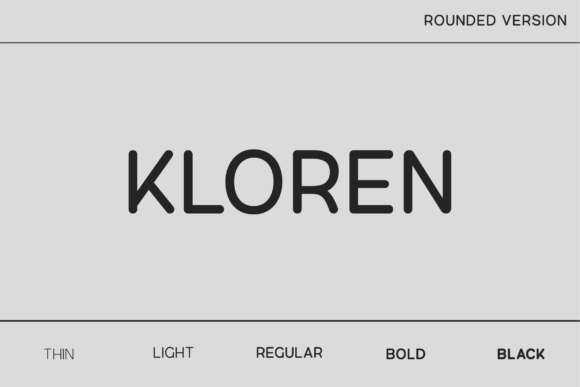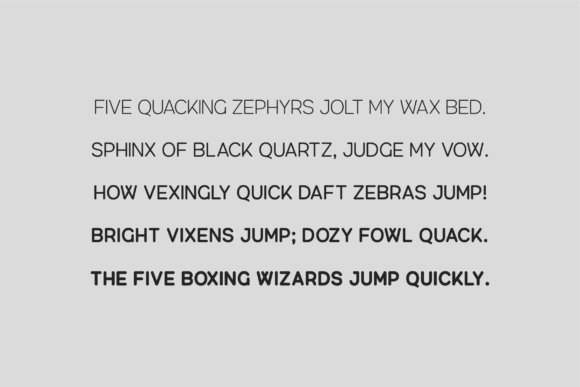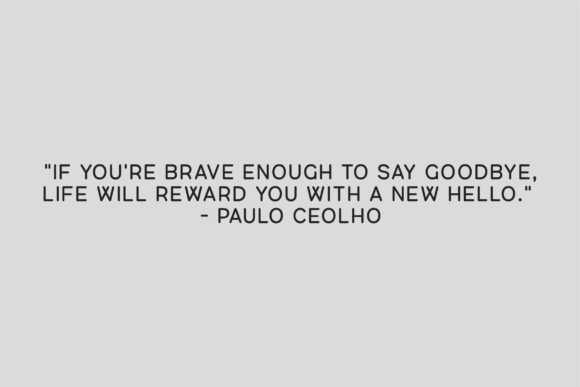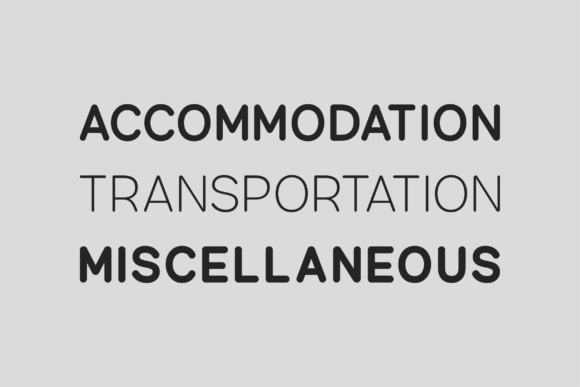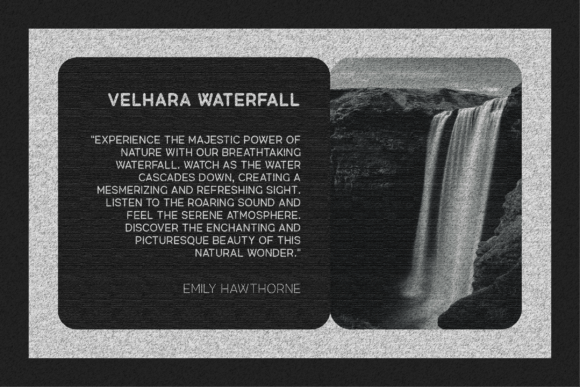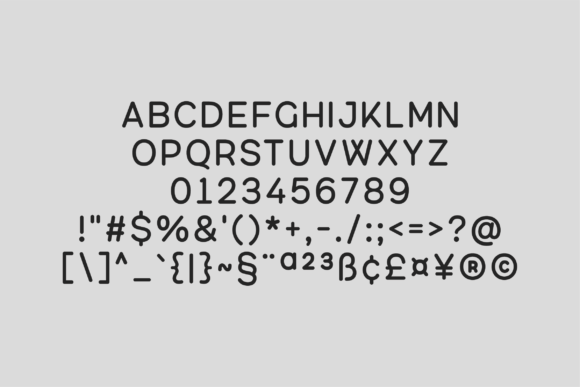
The Perfect Balance of Elegance and Approachability
As a designer, have you ever stared at a blank page, wondering how to bring your creative vision to life? The perfect font can make all the difference. It’s that moment when everything clicks into place, and your design begins to take shape. For many of us, it’s a moment of pure joy.
Enter Kloren Rounded Font, a captivating sans serif typeface that exudes modern elegance. This versatile font is perfect for branding, headlines, and editorial design, bringing a touch of warmth to any project. With its soft curves and balanced proportions, Kloren Rounded Font strikes the perfect harmony between sophistication and approachability, making it a valuable addition to any designer’s toolkit.
Whether you’re working on a high-end brand identity or a personal creative project, Kloren Rounded Font is sure to bring a unique touch to your design.
Kloren Rounded Font Key Features
- Font Family: Kloren Rounded is a sans-serif font family designed to provide a clean and modern look with rounded edges.
- Character Set: Supports a wide range of languages, including Latin, Cyrillic, Greek, and Devanagari, making it a versatile choice for global audiences.
- Font Size and Resolution: Designed to work optimally at medium to large font sizes (14pt-24pt) and resolutions up to 300 DPI, ensuring readability on various devices and screens.
- Unique Characteristics: Kloren Rounded features a distinctive rounded edge design, subtle rounded terminals, and a balanced x-height, making it an ideal choice for modern branding and digital applications.
- Font Weight and Style: Available in 8 weights (Thin, Light, Regular, Medium, Bold, Extra Bold, Black, and Outline) and 3 styles (Normal, Italic, and Bold Italic) for added flexibility and customization options.
Kloren Rounded Font Review
I recently had the chance to work with the Kloren Rounded Font, and I’m excited to share my honest thoughts with you. ✨ One thing that really stands out about this font is its versatility – it’s perfect for both digital and print projects, and its rounded edges give it a friendly, approachable feel that’s hard to resist.
Here are some specific things that work well about Kloren Rounded Font:
- ✨ It’s highly legible, even at small font sizes, making it ideal for body text and captions.
- ✨ The rounded edges give it a soft, approachable feel that’s perfect for branding and design projects where you want to convey a sense of warmth and friendliness.
- ✨ It’s available in a wide range of weights and styles, from light to bold, so you can easily customize it to suit your needs.
Of course, no font is perfect, and Kloren Rounded Font is no exception. ⚠️ Some limitations I’ve noticed include:
- ⚠️ It can feel a bit generic at times, so you may need to get creative with styling and layout to make it stand out.
- ⚠️ Some users may find the rounded edges too cutesy or childish, depending on the project and audience.
Overall, I’d say that Kloren Rounded Font is a solid choice for designers who need a versatile, approachable font for their projects. While it may not be the most unique or exciting font out there, it’s reliable, easy to use, and gets the job done.
Kloren Rounded Font is a versatile font that can be used for various purposes, such as:
– Digital signage and advertising
– Web design and user interfaces
Some tips to get the most out of Kloren Rounded Font include:
– Pairing it with bold and italic fonts for contrast
– Using it for headings and titles
– Experimenting with different font sizes and colors
Alternatives to Kloren Rounded Font for Designers
1. Lato Rounded
Lato Rounded is a modern sans-serif font with rounded edges, suitable for digital products, branding, and editorial content. It is a great alternative to Kloren Rounded Font for its clean and minimalistic design.
Comparison to Kloren Rounded Font: Lato Rounded has a more subtle rounded edge compared to Kloren Rounded Font, making it a better choice for modern and sleek designs.
What is the recommended font size range for Kloren Rounded Font?
Kloren Rounded Font is designed to be versatile and suitable for a wide range of font sizes. However, for optimal readability, we recommend using font sizes between 12pt and 48pt. Using font sizes outside of this range may affect the legibility of the text.